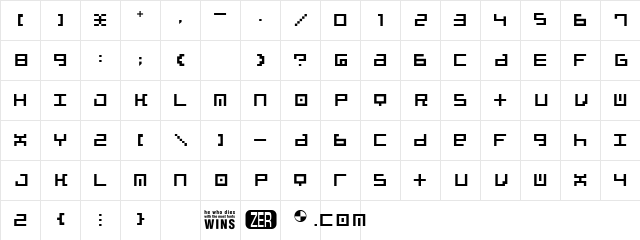
Beatbox Regular Free Font
Beatbox Regular
Design Context for Beatbox
Beatbox is a composed and adaptable typeface that performs quietly and consistently across a wide range of design contexts.